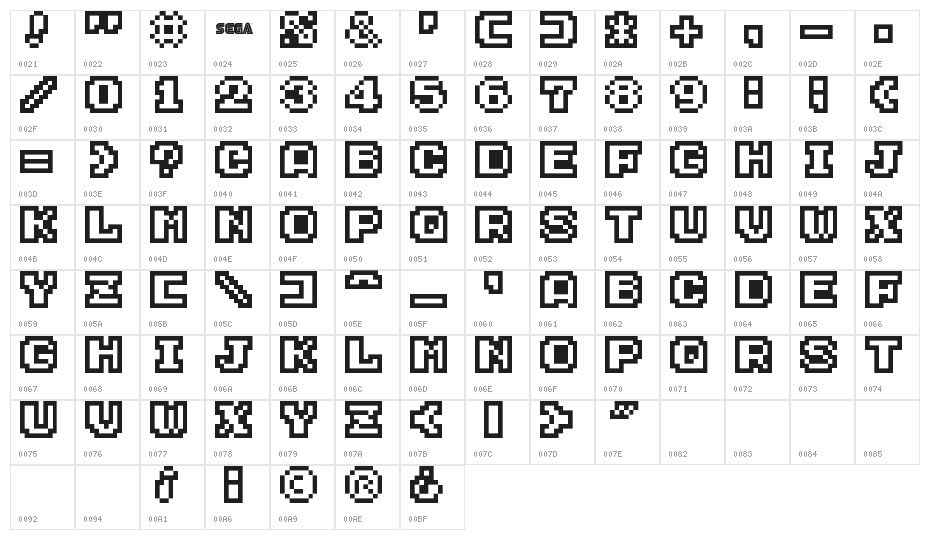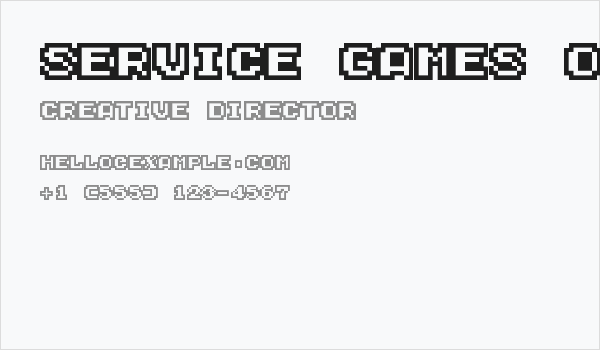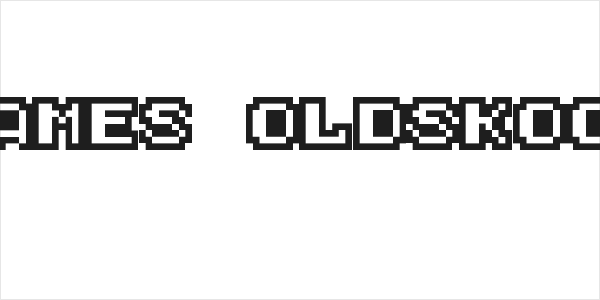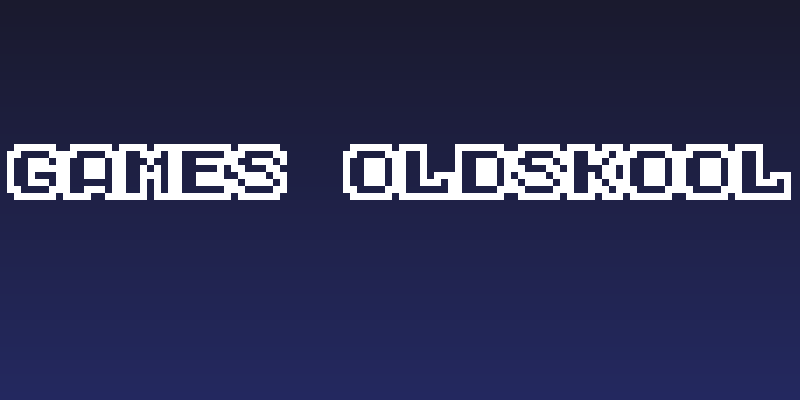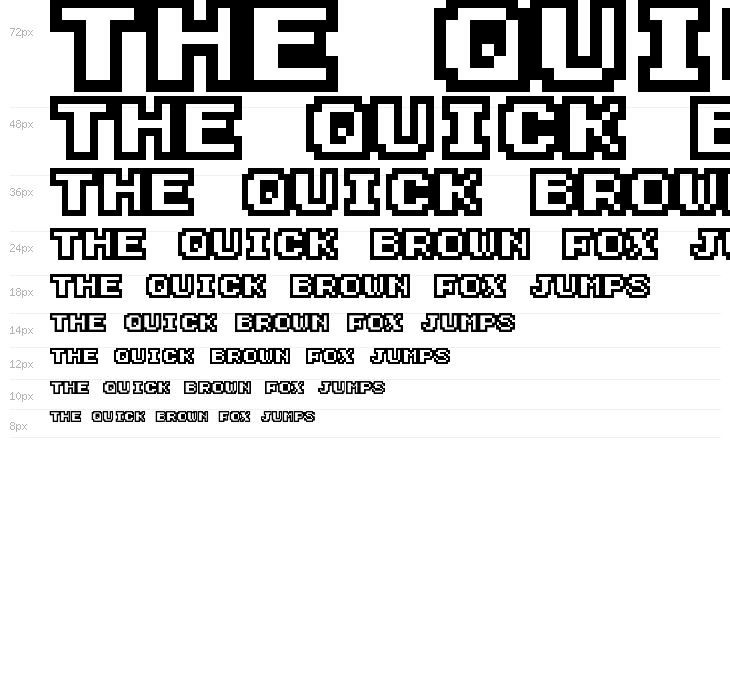
Service Games Oldskool Outline Font
Service Games Oldskool Outline Description
This font features a bold, pixelated outline style reminiscent of classic video game graphics. Each character is constructed with a blocky, grid-like appearance, giving it a retro, digital feel. The uppercase and lowercase letters maintain a consistent height, enhancing the uniformity and readability. Numbers and special characters follow the same pixelated design, ensuring a cohesive look across all elements. The font's distinct outline adds depth, making it stand out against backgrounds. Its nostalgic aesthetic is perfect for projects aiming to evoke a sense of vintage gaming or digital nostalgia.
| Proposed Projects | Ideal for retro video game designs, digital art projects, themed posters, and nostalgic branding. |